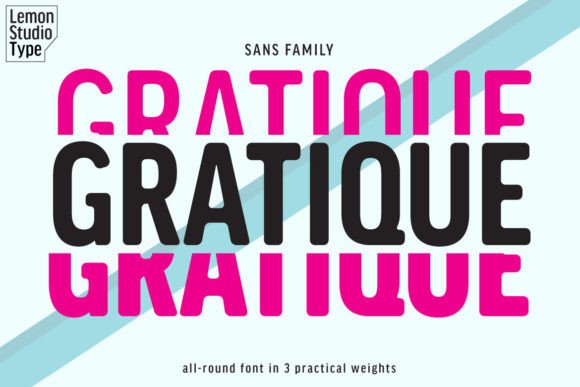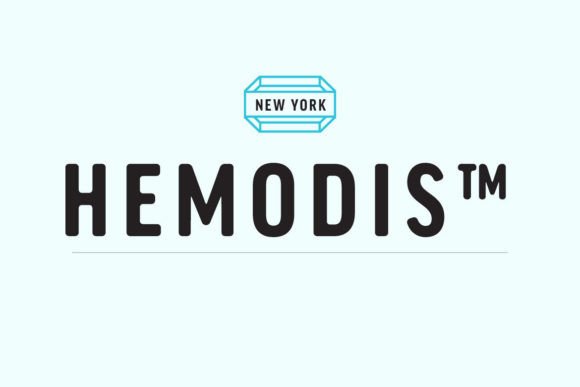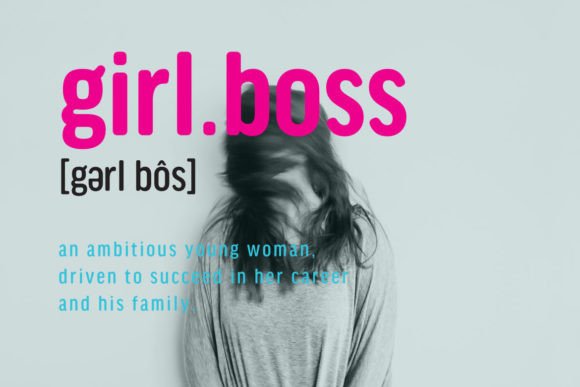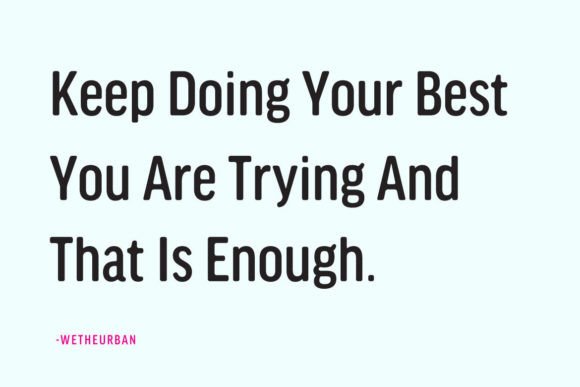
Gratique Font: A Modern Sans Serif for Playful Branding & Logo Design
About the Gratique Font
The Gratique Font is here to transform your projects with its distinctive character and style. Gratique is a semi-rounded sans-serif typeface. The curvature of the corners fits perfectly and makes it look so cool.
Gratique is perfect for headings, typography, branding, mockups, or any other design you need. It looks especially nice in a sans-casual style.
Gratique’s semi-rounded forms lend themselves well to headlines, logos, and short, impactful text on branding materials and posters. Its friendly yet modern feel makes it suitable for projects targeting a youthful or approachable audience. Avoid using Gratique for body text or long paragraphs; its slightly less legible nature at smaller sizes hinders readability in extended use.
Pairing Gratique effectively depends on the desired emphasis. For a bolder, more contemporary look, consider pairing it with a geometric sans-serif like Futura or a clean serif like Garamond. To soften its impact and create a more playful feel, a script font like Allura or a rounded sans-serif could work well.
Gratique projects a friendly, approachable, and modern personality, making it ideal for brands focused on technology, fashion, or lifestyle products that wish to communicate a sense of both innovation and approachability.
Gratique Font Usage Examples
Gratique Font Example